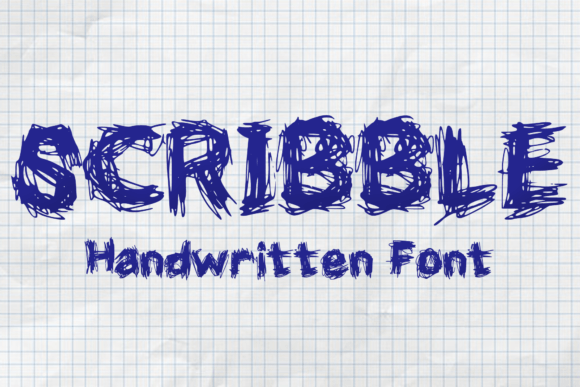
In a world where words dance and stories unfold, there exists a font that captivates hearts and ignites imaginations - Scribble Font, the ultimate display font family. Created by the visionary MVMET, Scribble is not just a font; it's a playful adventure, a journey into the realm of creativity and boundless expression.
Imagine the joy of a child's laughter, the carefree scribbles that adorn their notebooks and bedroom walls. Scribble embodies this spirit, transforming ordinary words into vibrant, whimsical creations. Its playful strokes, reminiscent of a child's carefree hand, evoke a sense of nostalgia and childlike wonder.
With Scribble, you can effortlessly craft designs that resonate with the young and the young at heart. Picture a vibrant birthday invitation, adorned with colorful Scribble letters, inviting friends and family to a celebration filled with laughter and joy. Or envision a children's book, its pages alive with Scribble characters, each letter a stepping stone in an enchanting tale.
Scribble's versatility extends beyond children's designs. Its casual touch adds a unique charm to t-shirts, greeting cards, stickers, and posters. Imagine a motivational quote, rendered in Scribble's playful style, adorning your workspace, inspiring you with its positive vibes. Or picture a heartfelt message, handwritten in Scribble's charming strokes, gracing a greeting card, carrying your love and warmth to a dear friend.
Scribble is more than just a font; it's a gateway to a world where creativity knows no bounds. It's a font that speaks to the child within us, reminding us of the joy of simple, unadulterated expression. Embrace Scribble's magic and watch as your designs come alive with personality, charm, and a touch of delightful whimsy.